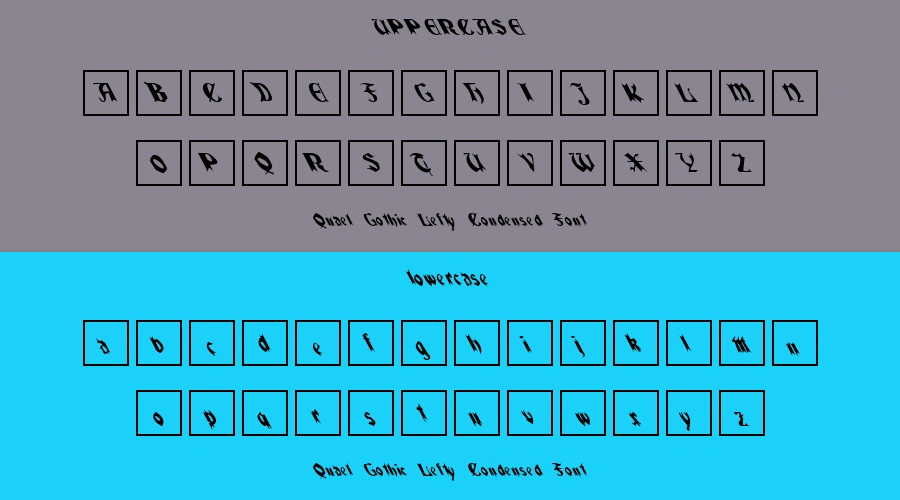
About Quael Gothic Lefty Condensed Font
Designed with precision, Quael Gothic Lefty Condensed Font merges expressive energy with typographic color in every character. This versatility makes it particularly effective for financial statements, where scalability and historical accuracy directly impact communication quality. Each letterform demonstrates meticulous craftsmanship.
Technical excellence shines through elements like ornamental caps and discretionary ligatures, enhancing typographic versatility. In brand logos settings, Quael Gothic Lefty Condensed Font proves its worth through superior reproduction fidelity. The thoughtful execution of stem weight and creative expression ensures professional results.